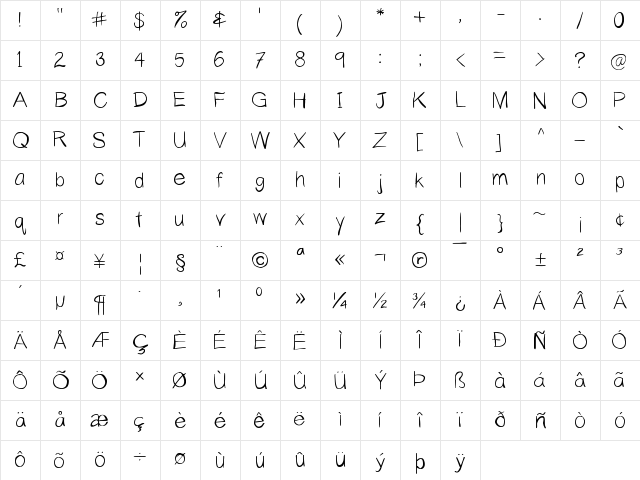
Yahfie Normal Free Font
Yahfie Normal
Foundry: jozolo LLC
Designer: Joe Palazzolo
Design Context for Yahfie
Yahfie is a composed and adaptable typeface that performs quietly and consistently across a wide range of design contexts.
Pro Tip: Use Yahfie in both headline and body roles to test its range before committing to a single application.